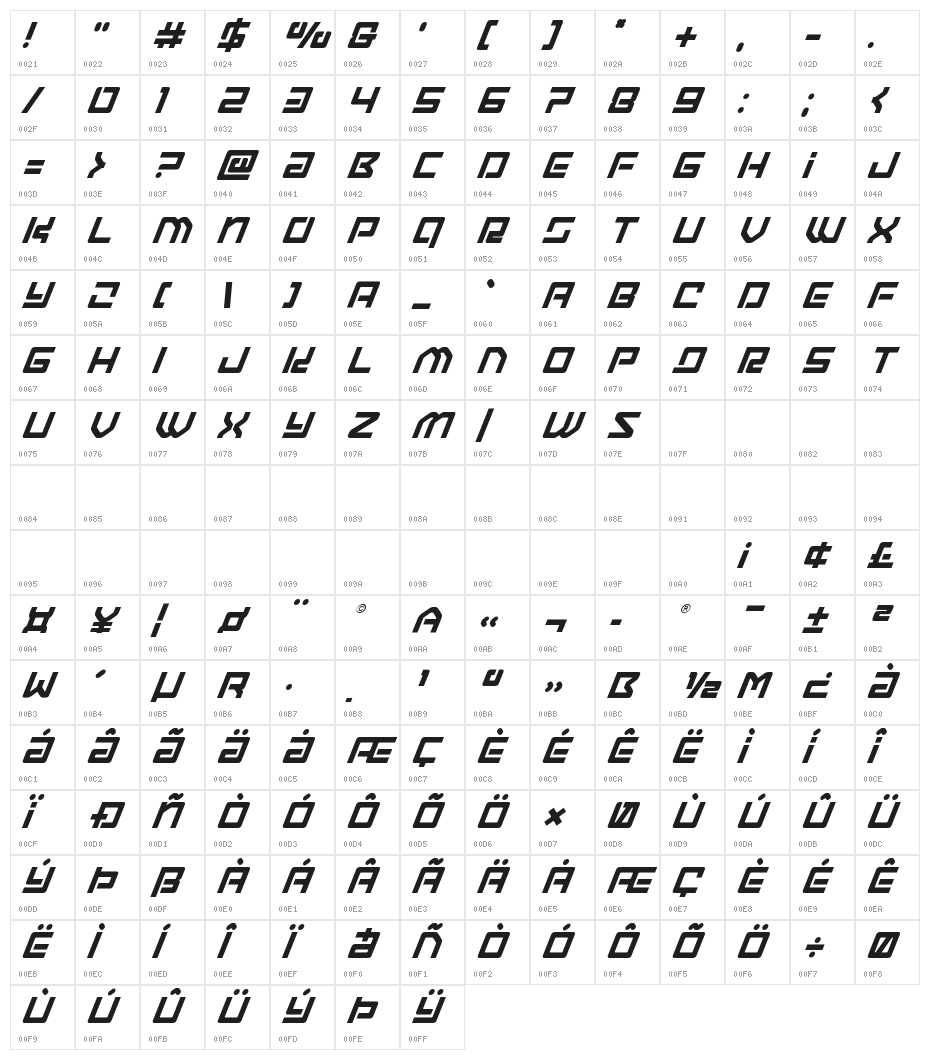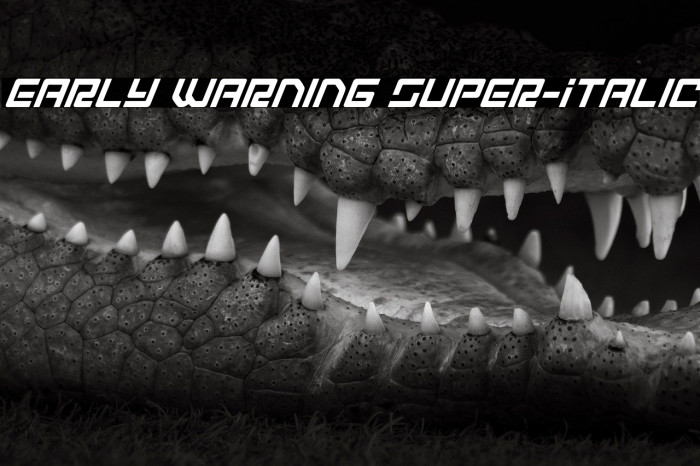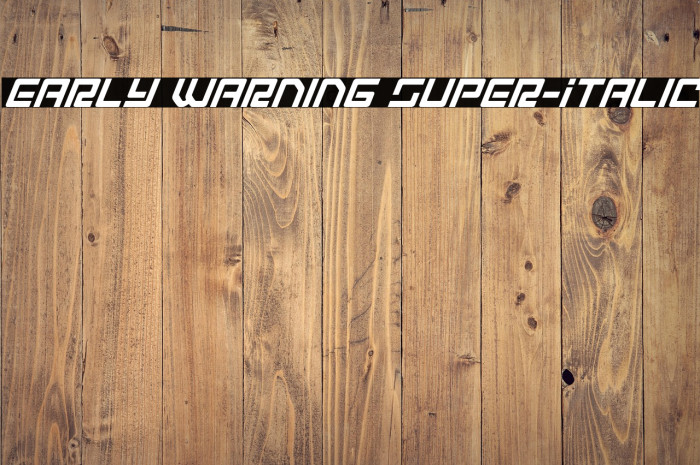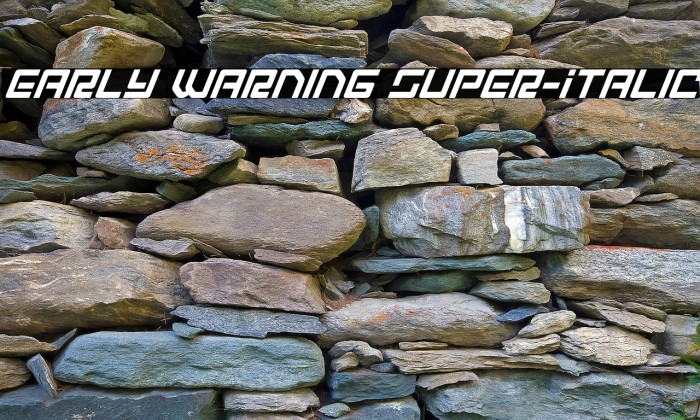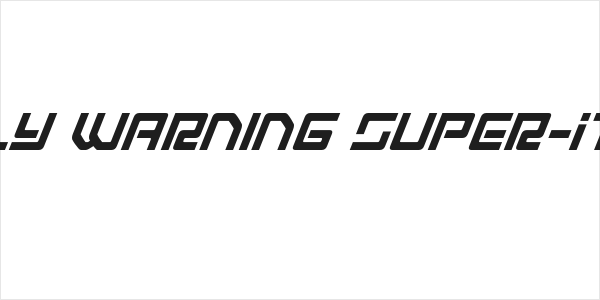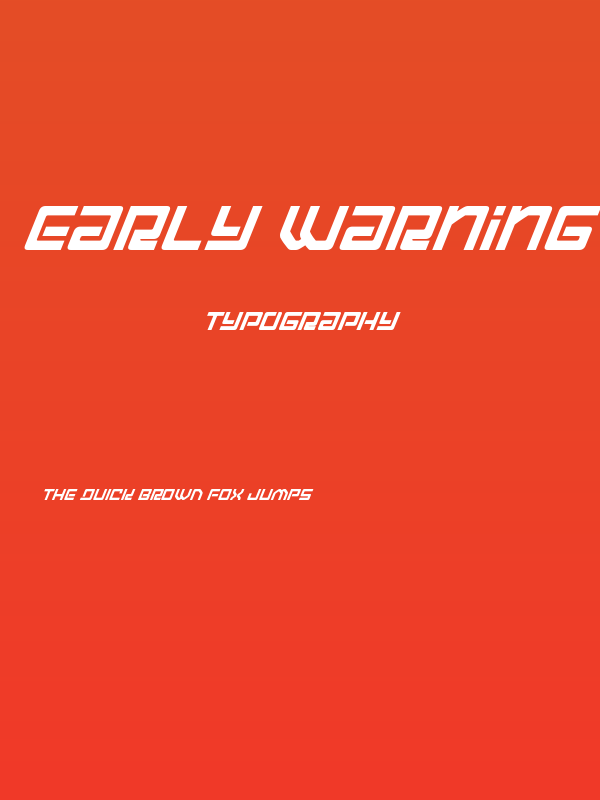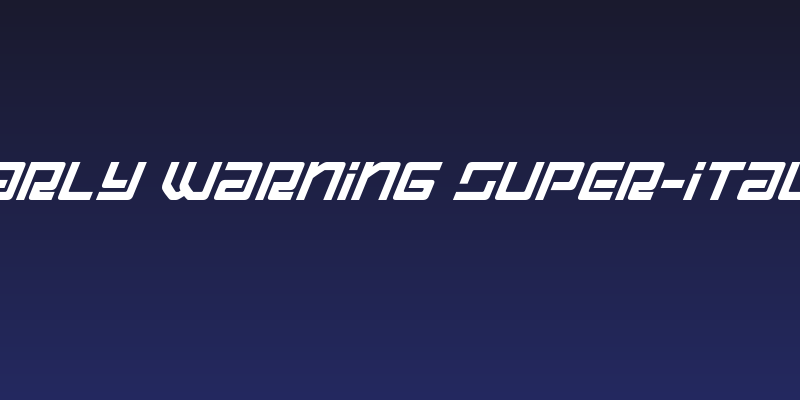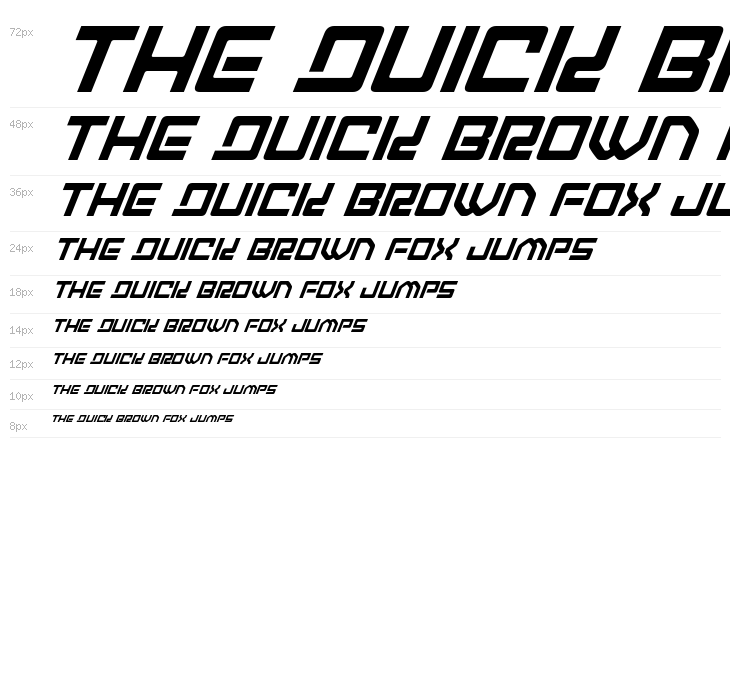
Early Warning Super-Italic Font
Early Warning Super-Italic Description
This font exhibits a dynamic and futuristic style with its sharp, angular lines and italicized slant. The characters are bold and convey a sense of speed and urgency, making it ideal for attention-grabbing headlines or branding that requires a modern edge. The uppercase and lowercase letters maintain a consistent design, with the lowercase mirroring the uppercase in form but at a reduced size. Numbers and special characters are designed to match the overall aesthetic, ensuring a cohesive look across all text elements. The font's geometric structure and slanted orientation give it a unique, tech-inspired appearance.
| Proposed Projects | Ideal for technology branding, sports team logos, or sci-fi themed projects. |